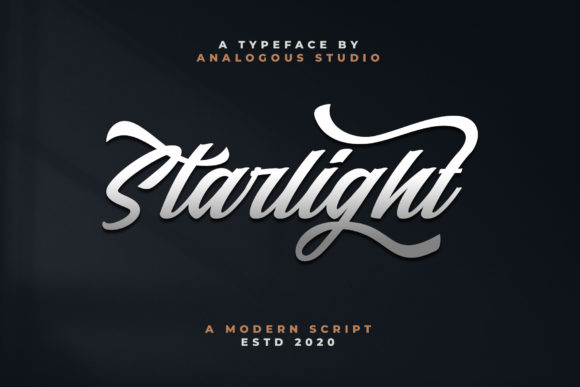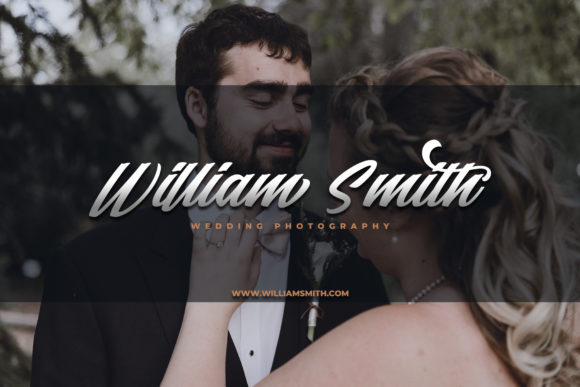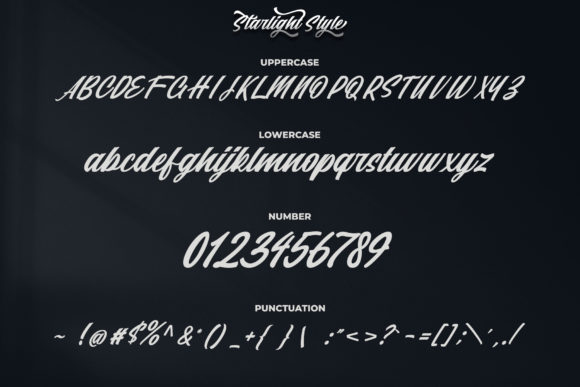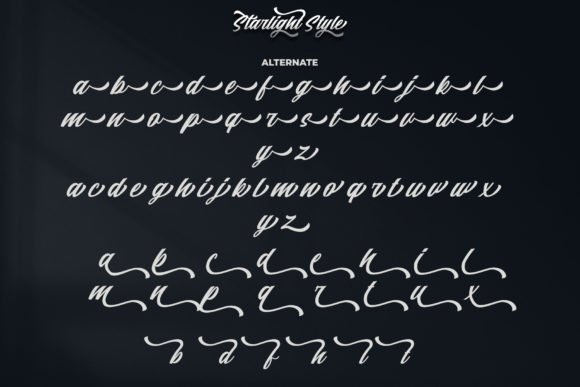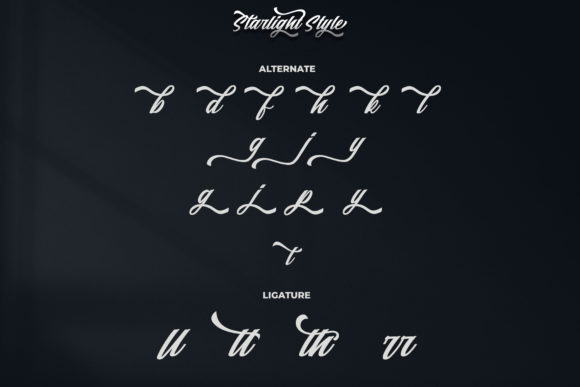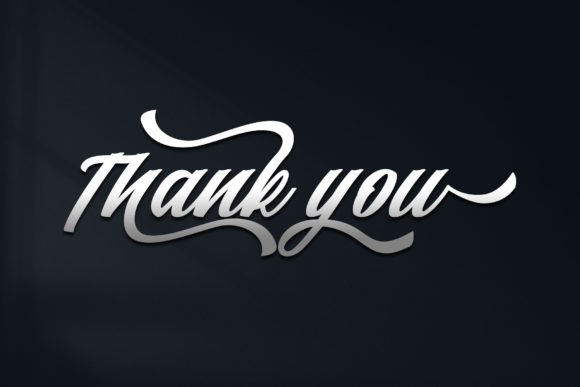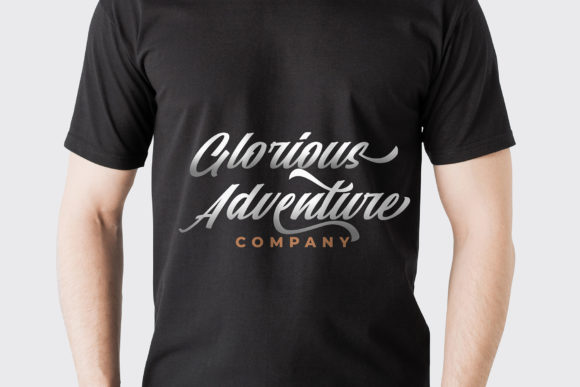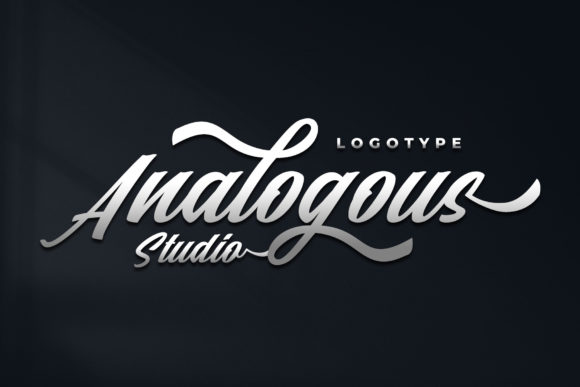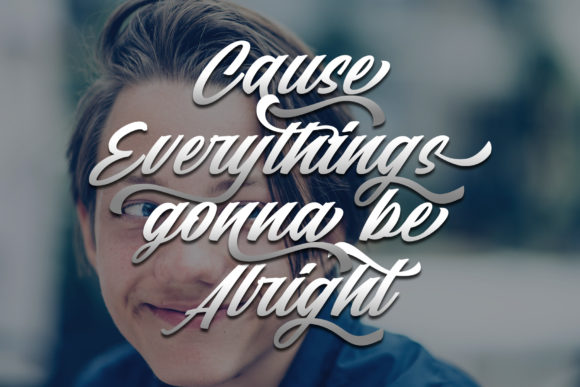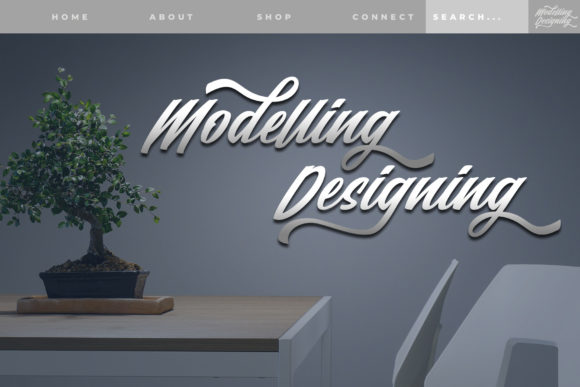
Starlight Font
About Starlight Font
Starlight is an elegant and flowing handwritten font. It is PUA encoded which means you can access all of the glyphs and swashes with ease! It features a varying baseline, smooth lines, gorgeous glyphs and stunning alternates. It maintains its classy calligraphic influences while feeling contemporary and fresh. Fall in love with Starlight and bring your projects to the highest levels!